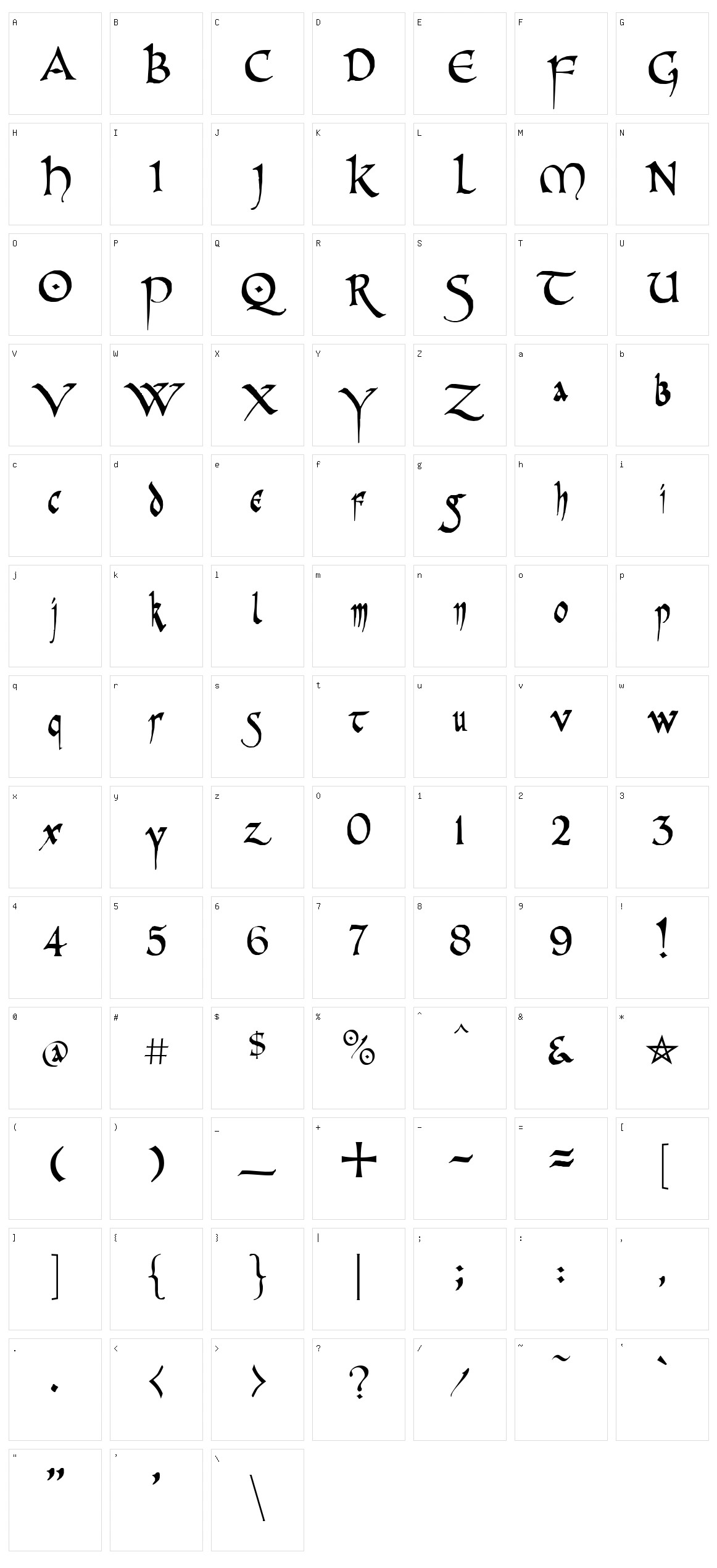
PR Celtic Narrow
Designed by: Peter Rempel
This font contains some of the same capital letters as "PR uncial altcaps", but they are kerned to fit with these small letters in a dropped position. Words typed in all capitals in this font will give an unsatisfactory appearance. For such applications, please use "PR uncial altcaps", or PR uncial which offers one set of characters in two sizes
the following symbols are included in this font for sake of completeness;
The only special character in this font is an alternative "l" which can be seen by typing alt+0204.